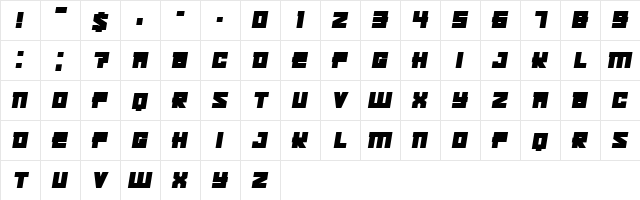
Kachusha Bold Italic
Design Context for Kachusha Typeface
Kachusha is a composed and adaptable typeface that performs quietly and consistently across a wide range of design contexts. The slanted form adds forward momentum and visual energy. The heavy weight commands attention and anchors typographic hierarchies.
Pro Tip: Try Kachusha for annotation and caption copy alongside an upright companion — the contrast in angle creates a dynamic but ordered typographic system.